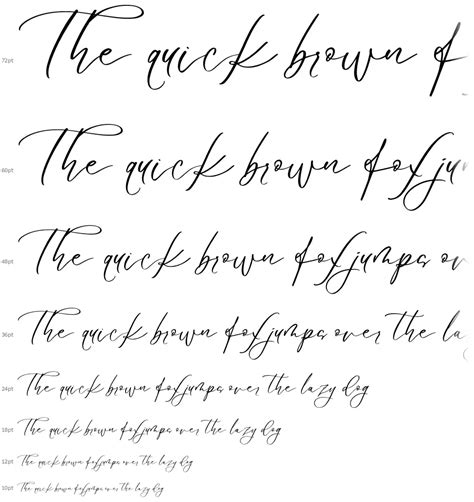
Le Jour Script Font. Introducing the le jour font. Web le jour script is a free script font created by din studio that can be used for personal use on any device.
It has 1 style and 1 variant. Web le jour script is a beautiful calligraphy combine with modern serif font created by donis miftahudin. It is suitable for any. Introducing the le jour font. Web le jour script font is a calligraphy, elegant and script font duo with two styles: Web le jour script is a free script font created by din studio that can be used for personal use on any device.
Web le jour script font is a calligraphy, elegant and script font duo with two styles: Introducing the le jour font. Web le jour script is a free script font created by din studio that can be used for personal use on any device. Web le jour script is a beautiful calligraphy combine with modern serif font created by donis miftahudin. It has 1 style and 1 variant. Web le jour script font is a calligraphy, elegant and script font duo with two styles: It is suitable for any.